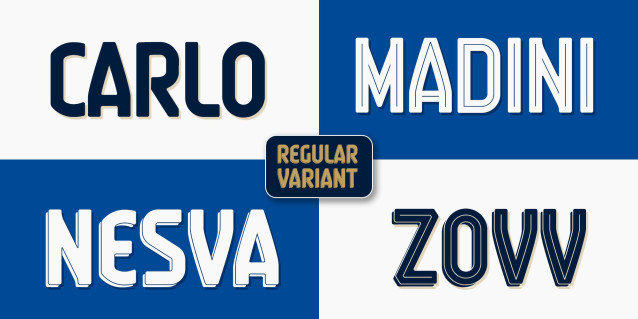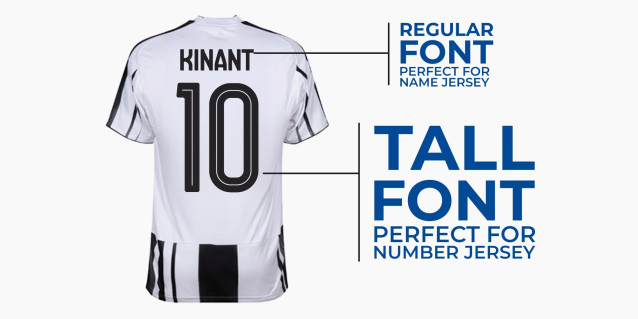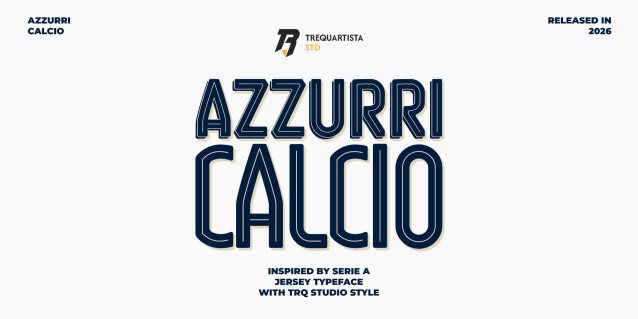
Azzuri Calcio Font
Azzuri Calcio Font is a bold retro display typeface inspired by the golden age of Italian football — the sun-bleached match programs, handpainted stadium banners, and letterpress sports posters of the 1950s through 1970s. Each letterform carries the weight of the terraces and the elegance of the Azzurri tradition.
Built for impact and atmosphere, Azzurri Calcio comes in 12 expressive styles — from clean upright forms to inline cuts, dramatic shadows, and towering tall variants — giving designers the full toolkit to craft authentic retro sports identities, vintage-inspired editorial layouts, and bold graphic headlines.